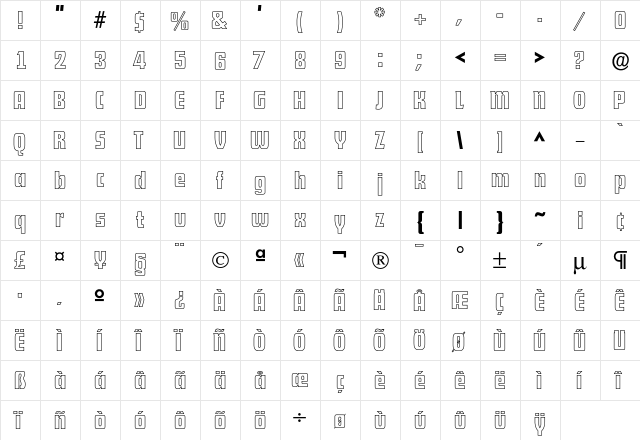
DekodisplayOpen Regular
Design Context for DekodisplayOpen Typeface
DekodisplayOpen is built around its visual character rather than neutral utility — its distinctive forms are designed to make an impression at display sizes.
Font Pairing: Pair with a clean neutral sans-serif for body copy to let DekodisplayOpen's character lead without overwhelming the composition.
Pro Tip: Treat DekodisplayOpen as the centrepiece of your typographic hierarchy. One strong heading set in a decorative face can carry an entire layout.